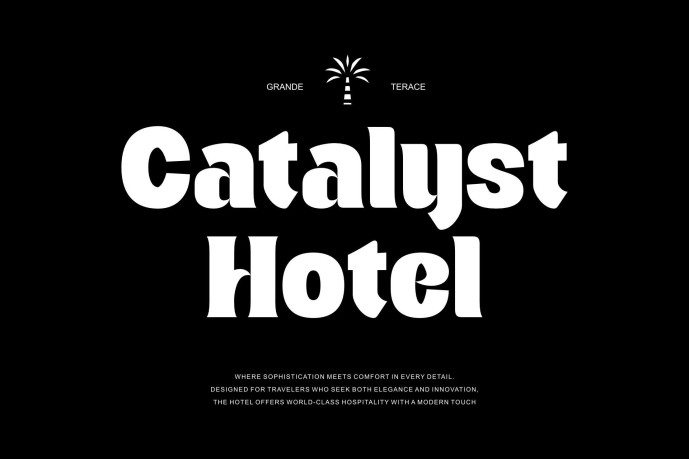
Teenage Wander Font
Teenage Wander – A Stylish Display Serif with Bold Personality that captures the spirit of youth, creativity, and bold expression. With 6 styles – Light, Regular, Medium, Semi Bold, Bold, and Extra Bold – this font gives you the freedom to play with tone and impact.
Perfect for editorial design, fashion branding, posters, and anything that needs a touch of classy attitude. It’s elegant, confident, and just a bit rebellious – like a teenager with a vision.